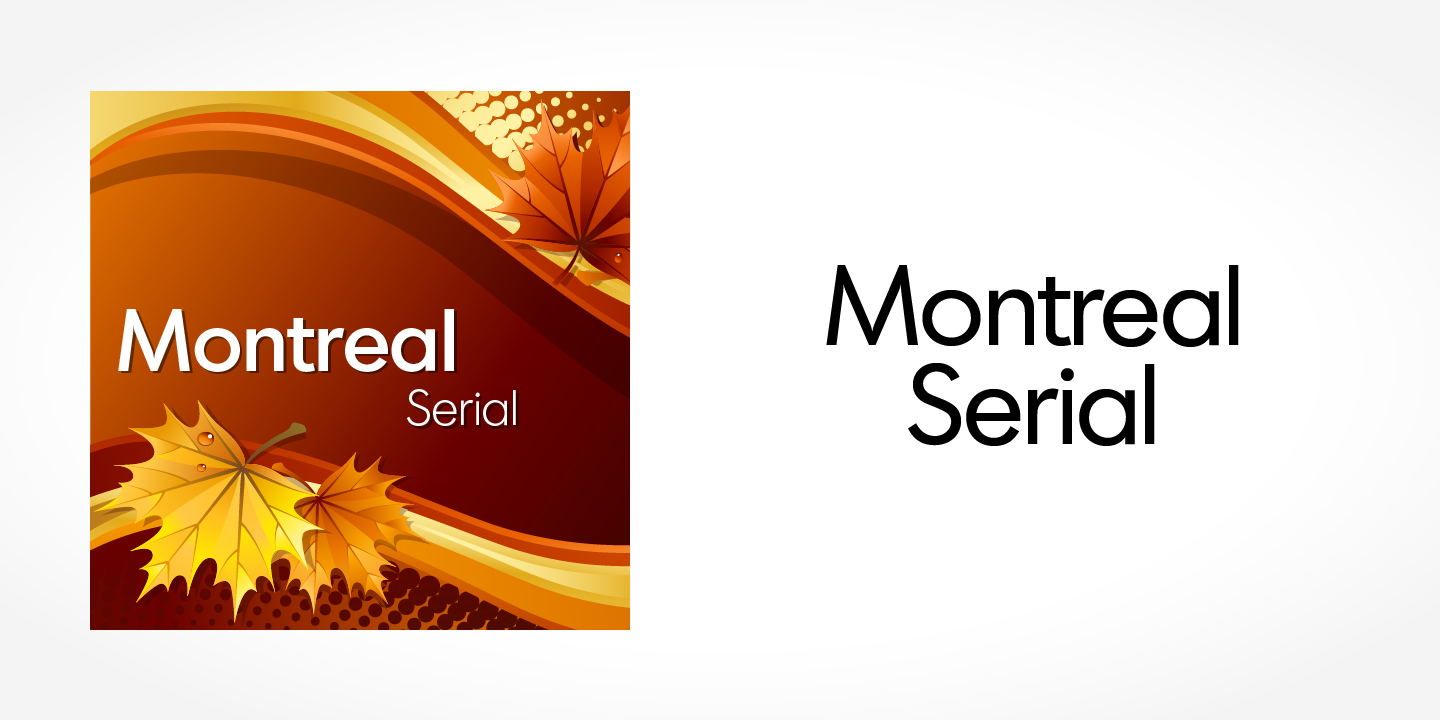
Montreal Serial Font excels in cosmopolitan applications including urban lifestyle brands, international business communications, contemporary hospitality, modern transit systems, metropolitan magazines, global consulting firms, and sophisticated city branding that requires versatile typography with international appeal and urban sophistication.
What makes Montreal Serial Font exciting is its perfect embodiment of cosmopolitan elegance and multicultural versatility. This refined typeface features clean, international characteristics that transcend cultural boundaries while maintaining distinctive personality, making it ideal for brands operating in global markets and seeking to communicate worldly sophistication and universal appeal.
The Montreal Serial Font family includes light, regular, medium, and bold weights, complemented by condensed variations and extensive multilingual character support. Each style maintains the font's characteristic metropolitan charm while providing designers with comprehensive typographic solutions for international communications and diverse cultural applications.
Global brands consistently choose Montreal Serial Font Free Download for projects requiring international credibility and cosmopolitan appeal. This versatile typeface seamlessly adapts to various cultural contexts while maintaining its distinctive urban character, ensuring brand messages resonate with diverse audiences seeking sophisticated international experiences.
The font's cosmopolitan aesthetics and multicultural functionality make it particularly suitable for hospitality and international business sectors. Montreal Serial Font delivers exceptional global impact while ensuring clear communication across languages and cultures, offering designers a sophisticated solution for creating memorable brand identities that communicate worldliness, diversity, and metropolitan excellence across international marketing platforms.